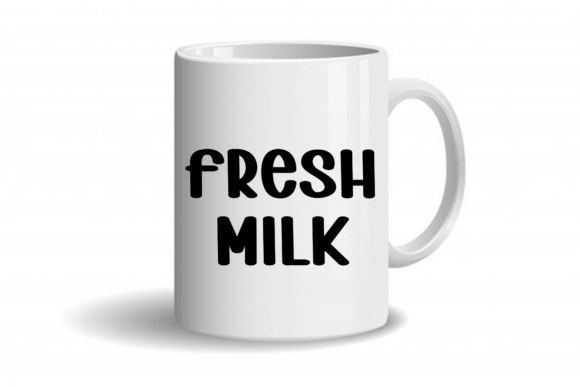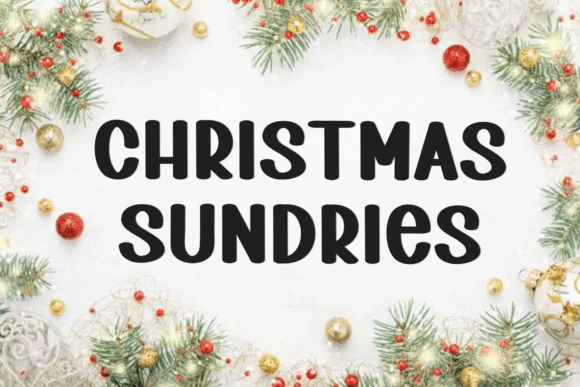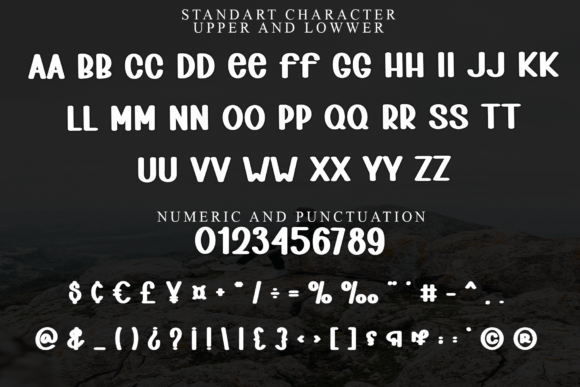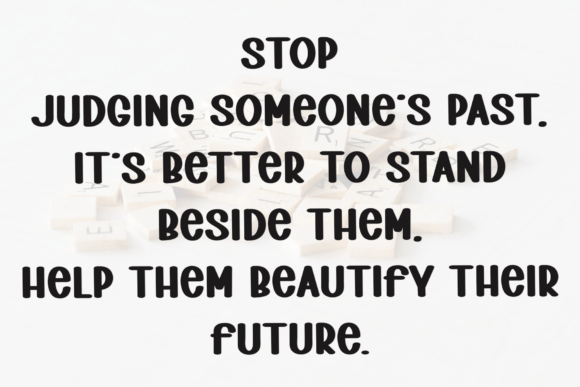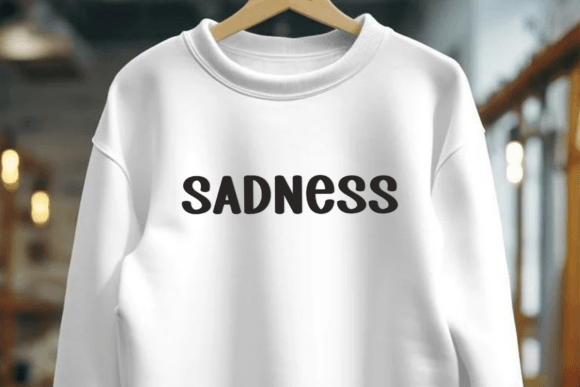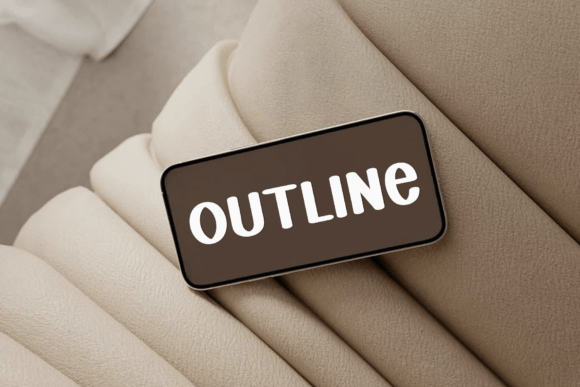
Introducing City Center Font: The Ultimate Holiday Typeface
The holiday season is upon us, and what better way to get into the spirit than with a festive and merry typeface? Look no further than City Center Font, a decorative and whimsical font that’s perfect for adding a touch of enchantment to your designs. In this article, we’ll dive into the world of City Center Font and explore its features, uses, and benefits for designers and crafters.
City Center Font is a holiday-themed typeface that’s designed to capture the magic and wonder of the season. With its decorative elements and whimsical flair, this font is sure to add a cheerful and nostalgic ambiance to your words. Whether you’re creating greeting cards, gift tags, or holiday-themed projects, City Center Font is the perfect choice.
Key Features of City Center Font
- Decorative elements: City Center Font features intricate and decorative elements that add a touch of elegance and sophistication to your designs.
- Whimsical flair: This font has a playful and whimsical feel that’s perfect for creating festive and fun designs.
- PUA encoded: City Center Font is PUA encoded, which means you can access all of the amazing glyphs and ligatures with ease.
Uses for City Center Font
City Center Font is a versatile typeface that can be used for a variety of projects, including:
- Greeting cards: Create festive and personalized greeting cards for the holiday season.
- Gift tags: Add a touch of elegance and sophistication to your gift tags with City Center Font.
- Holiday-themed projects: Use City Center Font to create festive and fun designs for holiday-themed projects, such as party invitations, flyers, and brochures.
City Center Font offers a range of benefits for designers and crafters, including:
- High-quality design: This font is designed to high-quality standards, ensuring that your designs look professional and polished.
- Time-saving: With City Center Font, you can create festive and fun designs in no time, saving you time and effort.
Tips for Using City Center Font
Here are some tips for getting the most out of City Center Font:
- Experiment with different sizes and colors: City Center Font looks great in a variety of sizes and colors, so don’t be afraid to experiment and find the perfect combination for your design.
- Pair with other fonts: City Center Font pairs well with other fonts, so try combining it with a sans-serif font for a fun and modern look.
- Use glyphs and ligatures: Take advantage of City Center Font’s PUA encoding and use the glyphs and ligatures to add extra flair to your designs.